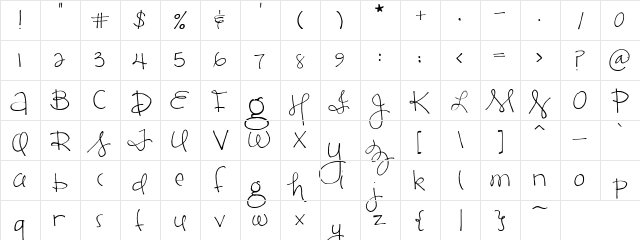
CK Alayna Regular
Design Context for CK Alayna Typeface
CK Alayna is a composed and adaptable typeface that performs quietly and consistently across a wide range of design contexts.